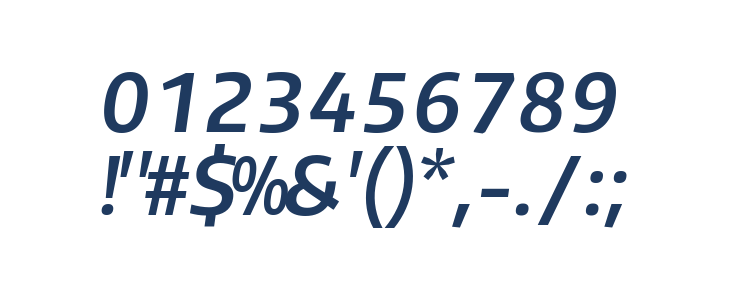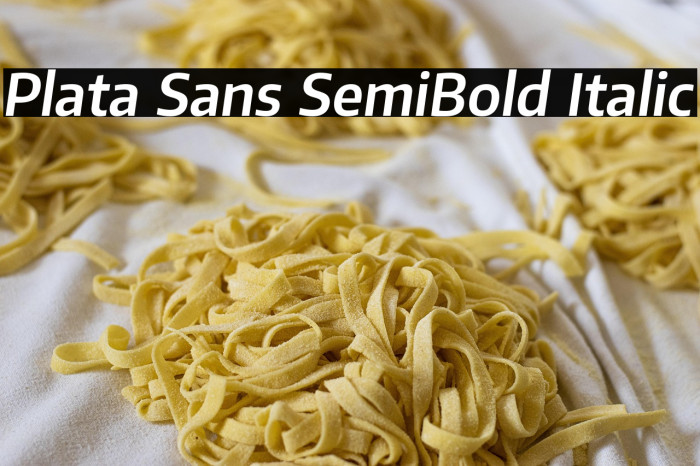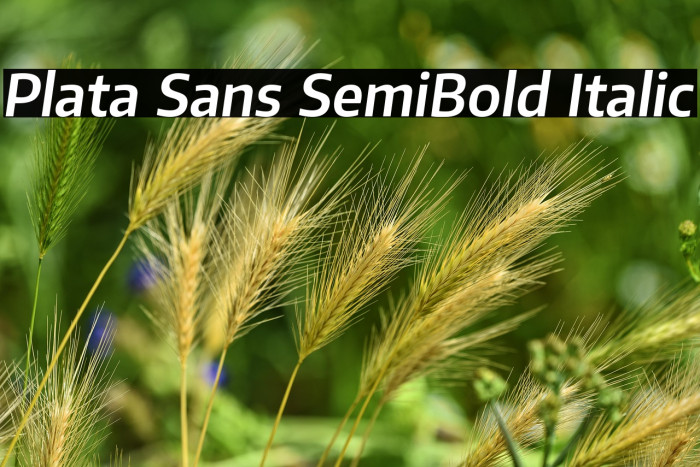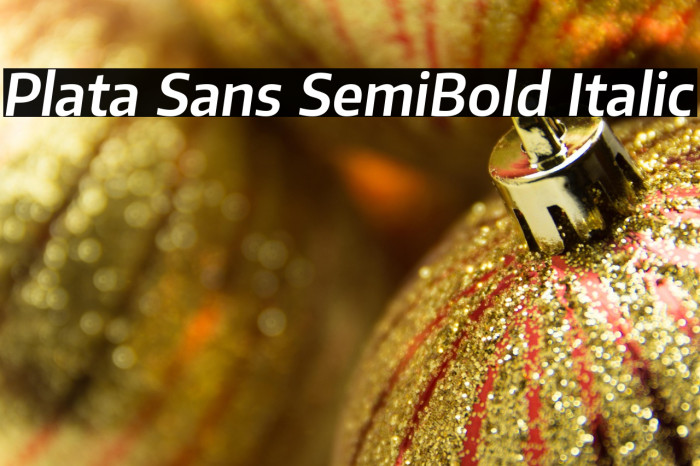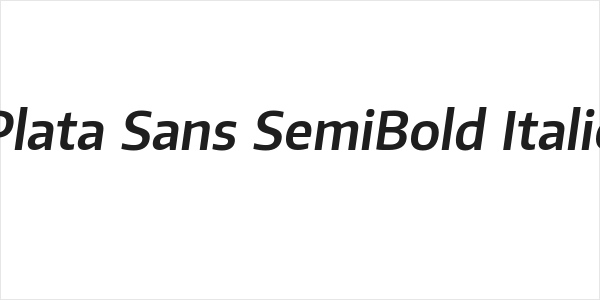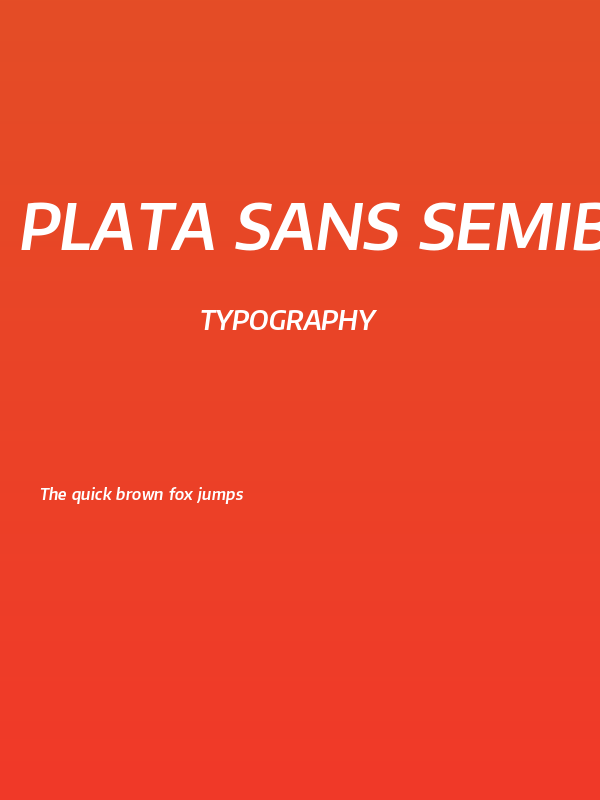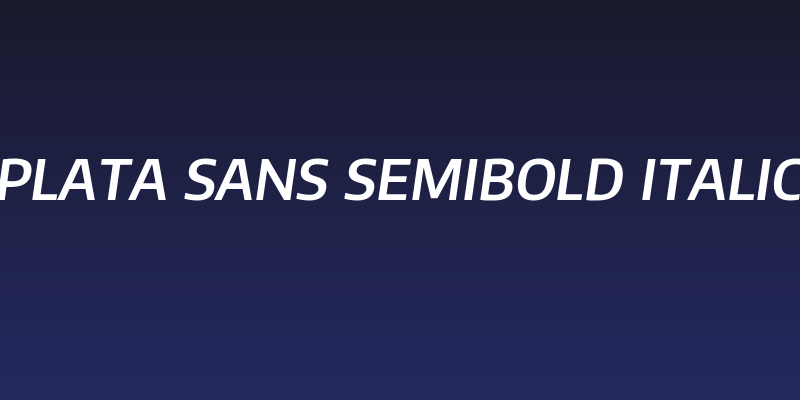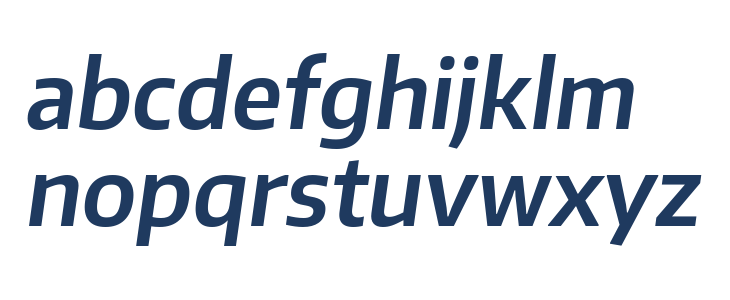
Plata Sans SemiBold Italic Font
Plata Sans SemiBold Italic Description
This typeface exhibits a sleek and modern aesthetic, characterized by its semi-bold weight and italic style. The letters are slightly slanted, giving a dynamic and forward-moving appearance. The sans-serif design ensures clean lines and a contemporary feel, making it versatile for various design applications. The characters are well-proportioned, with a moderate contrast in stroke thickness that enhances readability. The spacing between characters is normal, allowing for clarity and legibility across different sizes. This font is suitable for both digital and print media, offering a professional yet approachable look.
| Proposed Projects | Ideal for branding, advertising, website headers, and editorial design. |